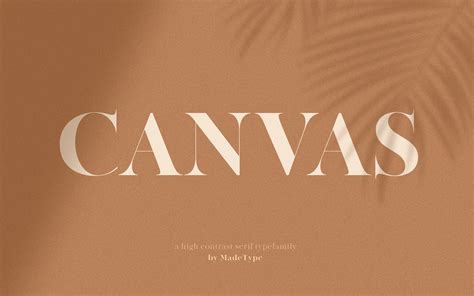
Made Canvas Font
Made Canvas Font - Canvas is a modern style didoni. Canvas is a modern style “didoni”.
Canvas is a modern style “didoni”. Canvas is a modern style didoni.
Canvas is a modern style didoni. Canvas is a modern style “didoni”.
Canvas Is A Modern Style “Didoni”.
Canvas is a modern style didoni.